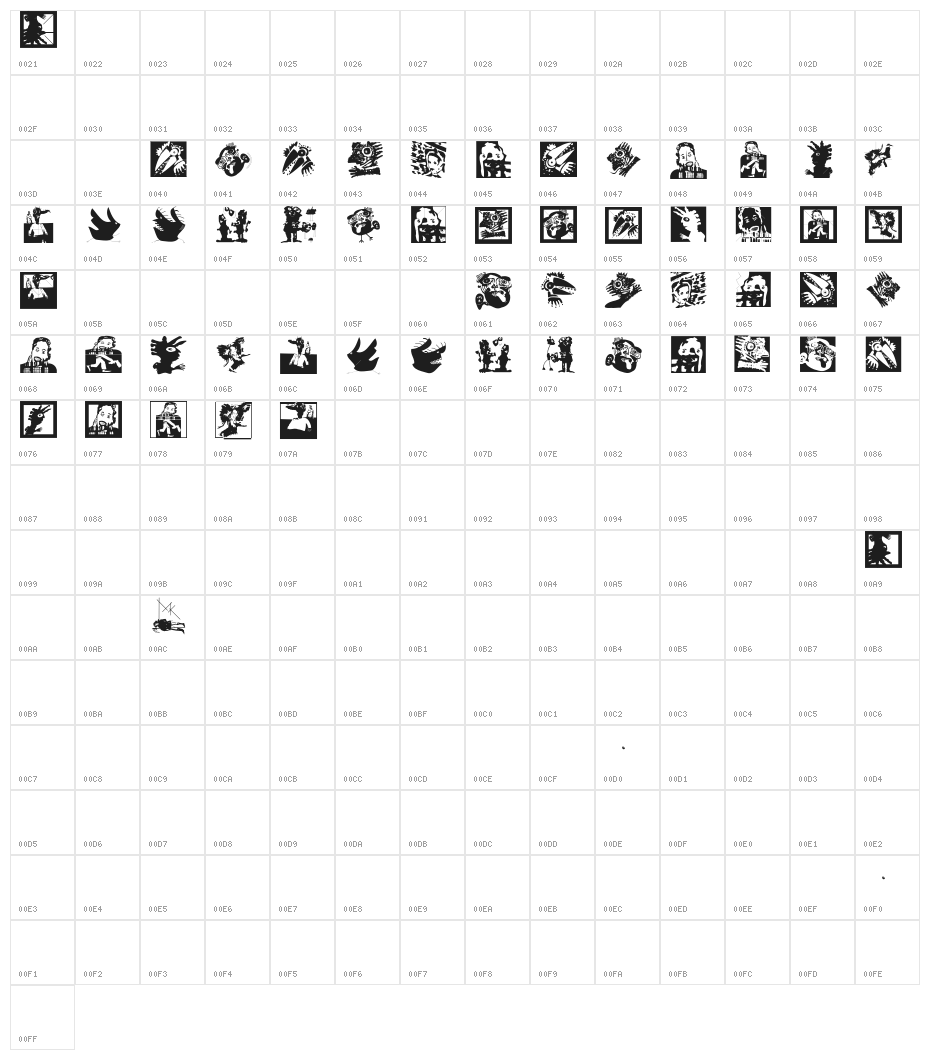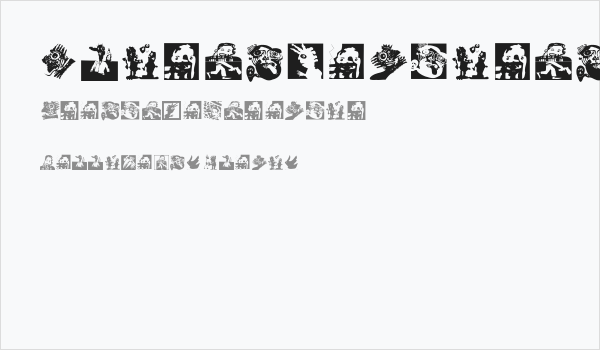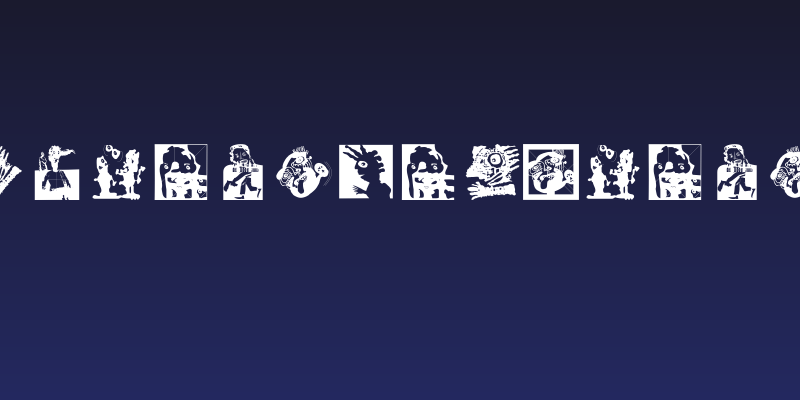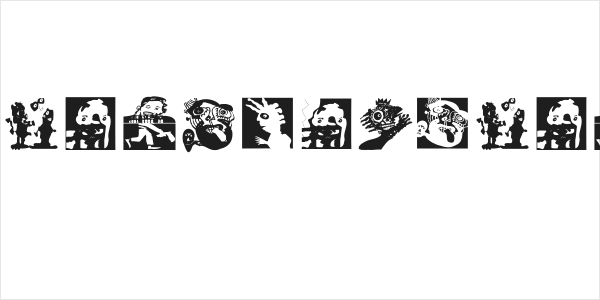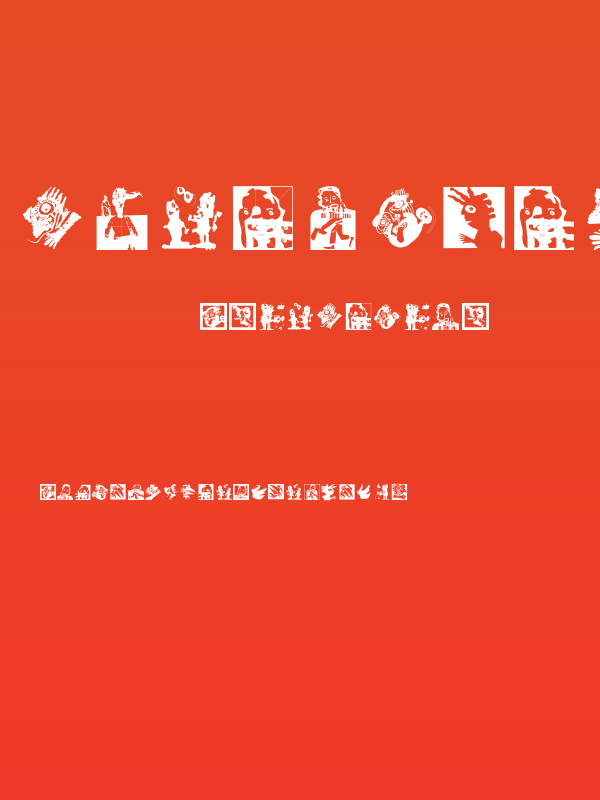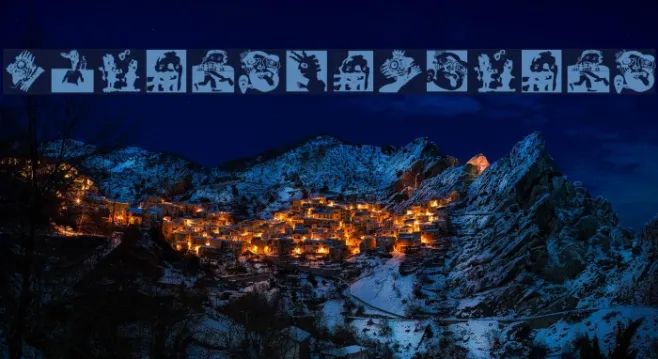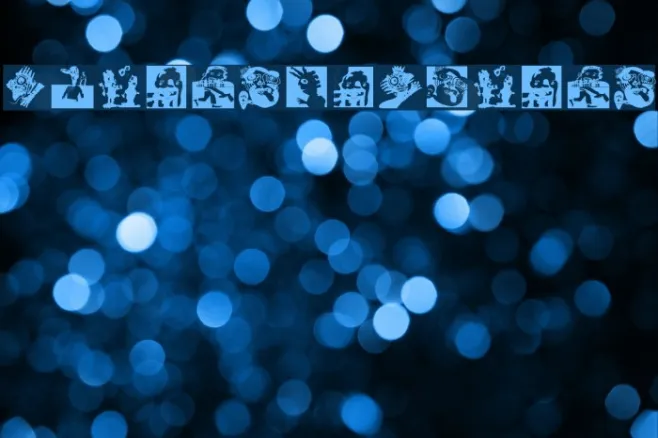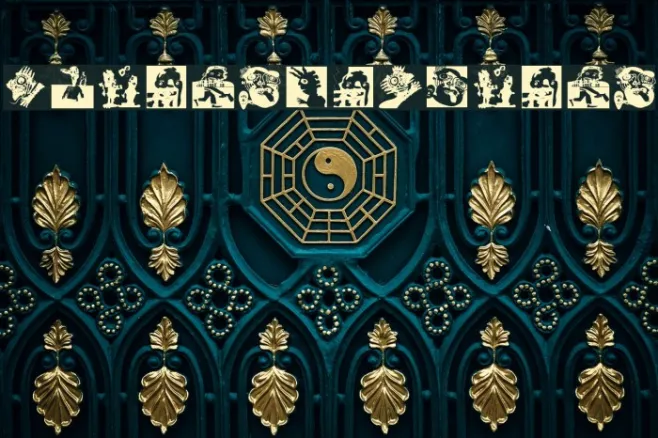
GloriaVectoria Font
GloriaVectoria Description
A highly decorative and illustrative font composed of bold, black-and-white graphic icons with surreal, expressive, and abstract human and animal figures, each character rendered as a unique artwork rather than a traditional letterform.
| Overall Style | Decorative, Surreal, Artistic |
| Use Case | Logos, Posters, Artistic projects, Album covers |
| Proposed Projects | Album covers, poster art, editorial illustrations, alternative comics, creative branding, zines. |